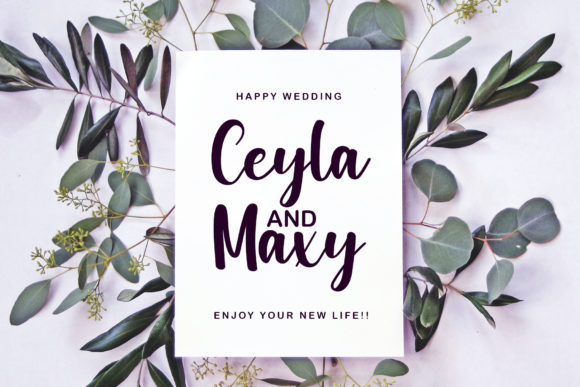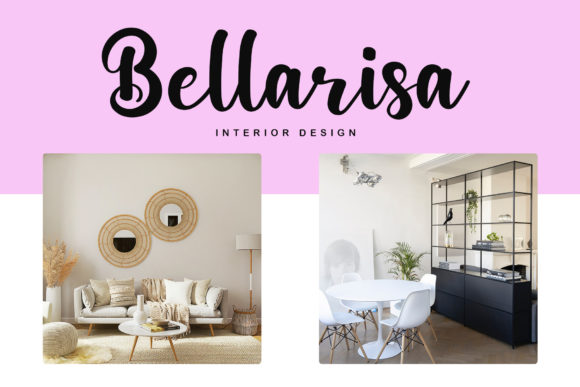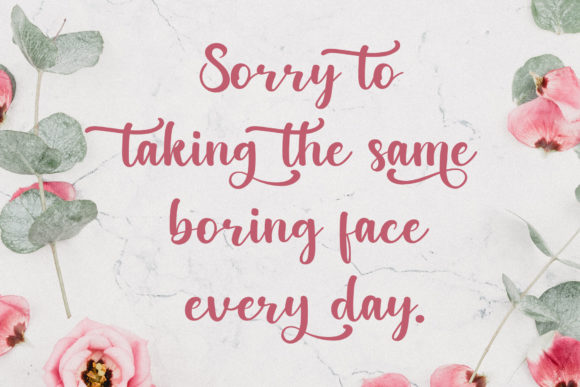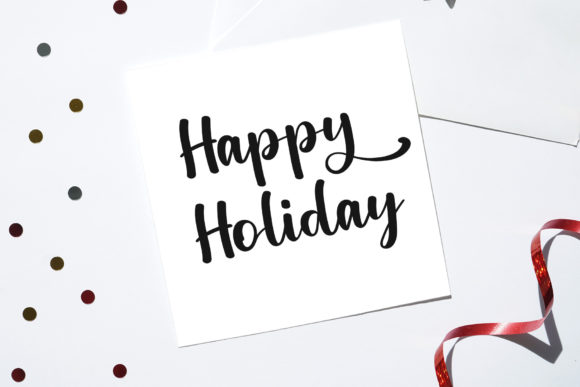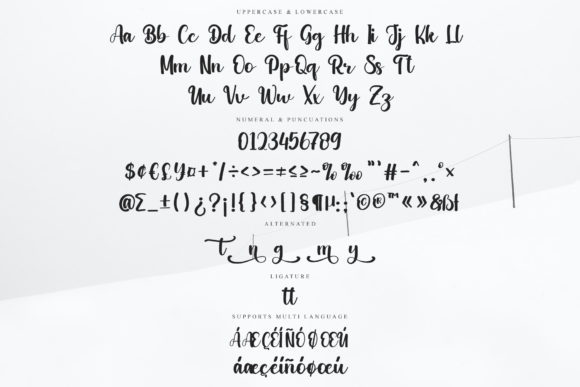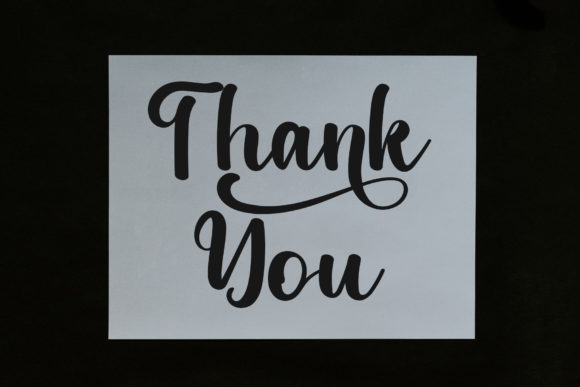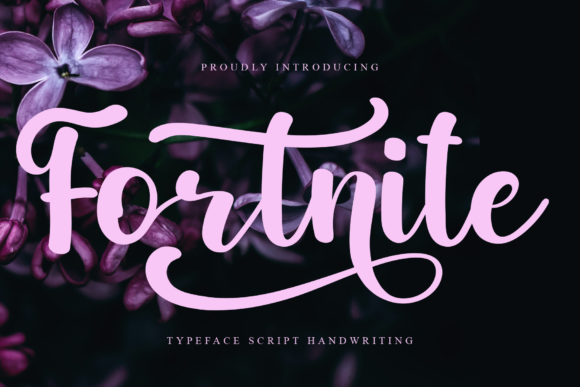
Unleash Your Creativity with Fortnite Font: The Ultimate Modern Calligraphy Typeface
Are you a designer, crafty person, or simply a fan of the popular online game Fortnite? Look no further! We’re excited to introduce you to the Fortnite Font, a romantic and sweet modern calligraphy typeface that’s sure to elevate your creative projects. This stunning font features characters dancing along the baseline, giving it a playful and energetic vibe that’s perfect for a wide range of applications.
What Makes Fortnite Font So Special?
Fortnite Font is more than just a beautiful typeface – it’s also incredibly versatile and easy to use. This font is PUA (Private Use Area) encoded, which means you can access all the amazing glyphs and ligatures with ease. Whether you’re creating a custom logo, crafting a handmade card, or designing a social media graphic, Fortnite Font is the perfect choice.
Key Features of Fortnite Font
- Modern Calligraphy Style: Fortnite Font boasts a beautiful, modern calligraphy style that’s perfect for creating elegant and sophisticated designs.
- Dancing Characters: The font’s unique feature is that the characters dance along the baseline, giving it a playful and whimsical feel.
- PUA Encoded: With PUA encoding, you can easily access all the glyphs and ligatures, making it simple to create stunning text arrangements.
- Multilingual Support: Fortnite Font supports multiple languages, making it a great choice for designers working on international projects.
Fortnite Font is an excellent addition to any designer’s or crafter’s toolkit. Whether you’re creating:
- Logos and Branding: Use Fortnite Font to create a custom logo that stands out from the crowd.
- Social Media Graphics: Add a touch of elegance and sophistication to your social media graphics with this beautiful font.
- Handmade Cards and Invitations: Create one-of-a-kind, handmade cards and invitations that will leave a lasting impression.
- Digital Art and Illustrations: Incorporate Fortnite Font into your digital art and illustrations for a unique and eye-catching effect.
Tips and Tricks for Using Fortnite Font
To get the most out of Fortnite Font, here are a few tips and tricks to keep in mind:
- Experiment with Ligatures: Take advantage of the font’s PUA encoding to create stunning ligatures and glyph combinations.
- Play with Color and Texture: Add depth and interest to your designs by experimenting with different colors and textures.
- Mix and Match with Other Fonts: Combine Fortnite Font with other fonts to create a unique and visually appealing typography.